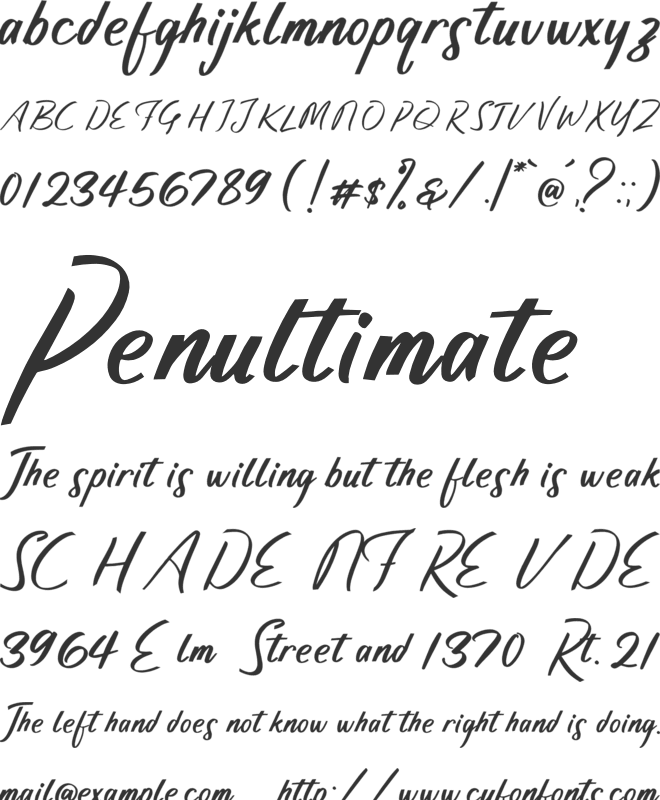
Edward Script Font
It has uppercase and lowercase letters, numbers and numerals and useful punctuations, etc. The Edward Script is common for digital designs like logos, art & Illustrations, Typography, and much more. It is also worthy for writing tasks like Heading and titling, summaries, quotes, and notes as well. It is an OTF feature with digitally signed and postscript outlines as well. To download font, click here: https://dafontfamily.com/edward-script-font/ You can also apply the Edward Script Font in some eminent designing software like Adobe Photoshop, Adobe Illustrations, and InDesign, and also helpful for creating CSS (Cascading Style Sheet). Due to its connected letters and smooth lines, the font style falls in the category of the Script family and also has a fancy nature. Edward Script Font is under restriction and can only be utilized in personal designs until you don’t get full access from its author.